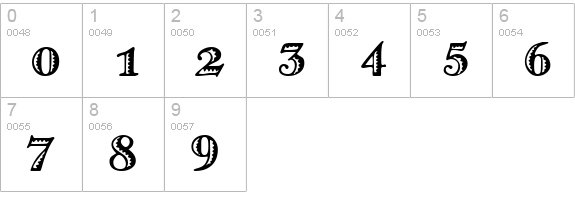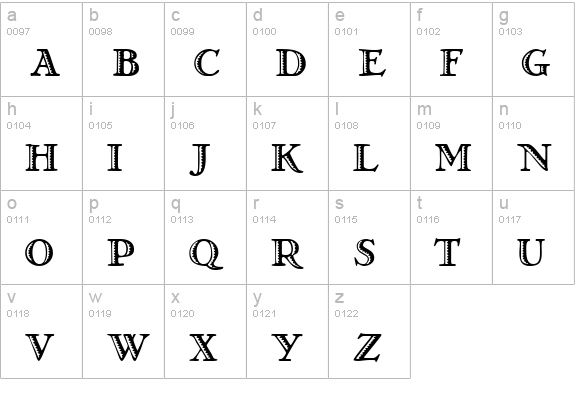
GrekoDeco Font Details
Introducing GrekoDeco font, a unique and stylish typeface that effortlessly blends modern design elements with a touch of vintage charm. This versatile font is perfect for adding a retro aesthetic to your projects, whether it's for branding, packaging, posters, or social media graphics. With its bold and eye-catching letterforms, GrekoDeco font is sure to make a statement and leave a lasting impression on your audience. The geometric shapes and decorative details give this font a distinct Art Deco vibe that sets it apart from the rest. Best of all, GrekoDeco font is completely free to download at FontsMarket.com. Whether you're a designer looking to add a touch of sophistication to your work or a hobbyist looking to elevate your personal projects, GrekoDeco font is the perfect choice. Download it today and unleash your creativity with this stunning typeface.